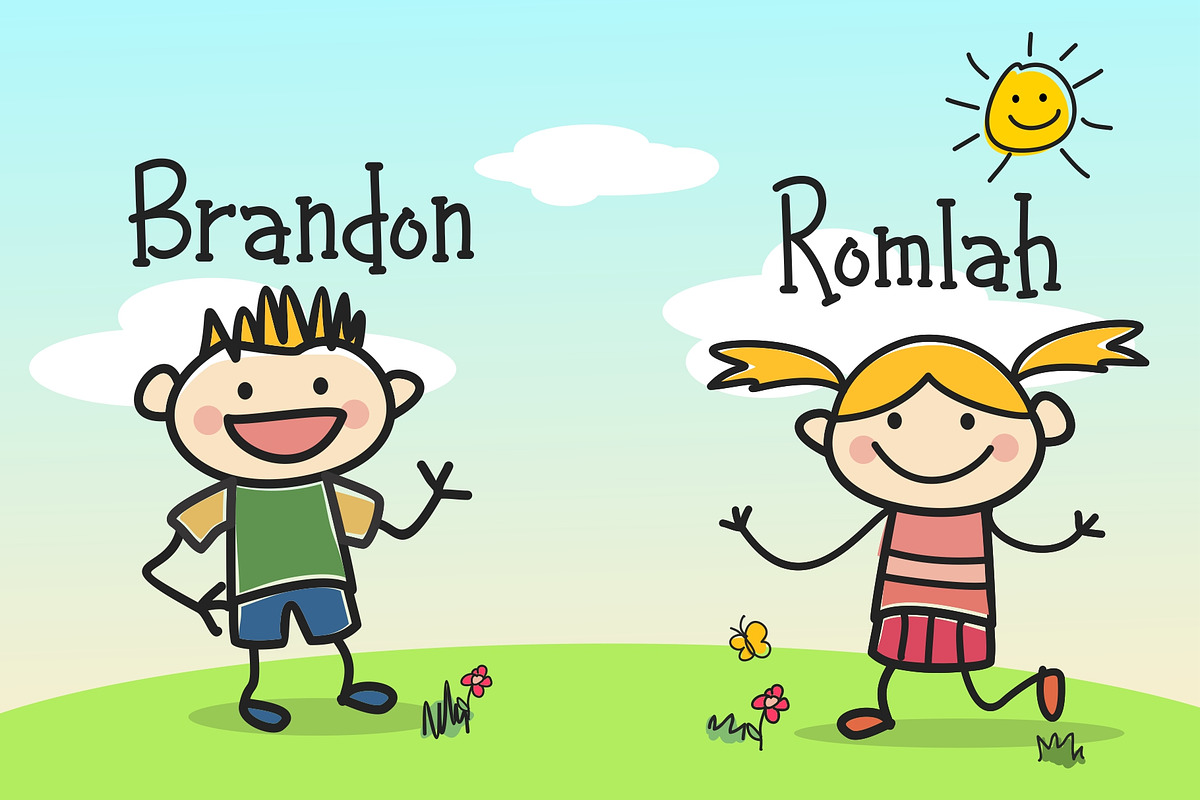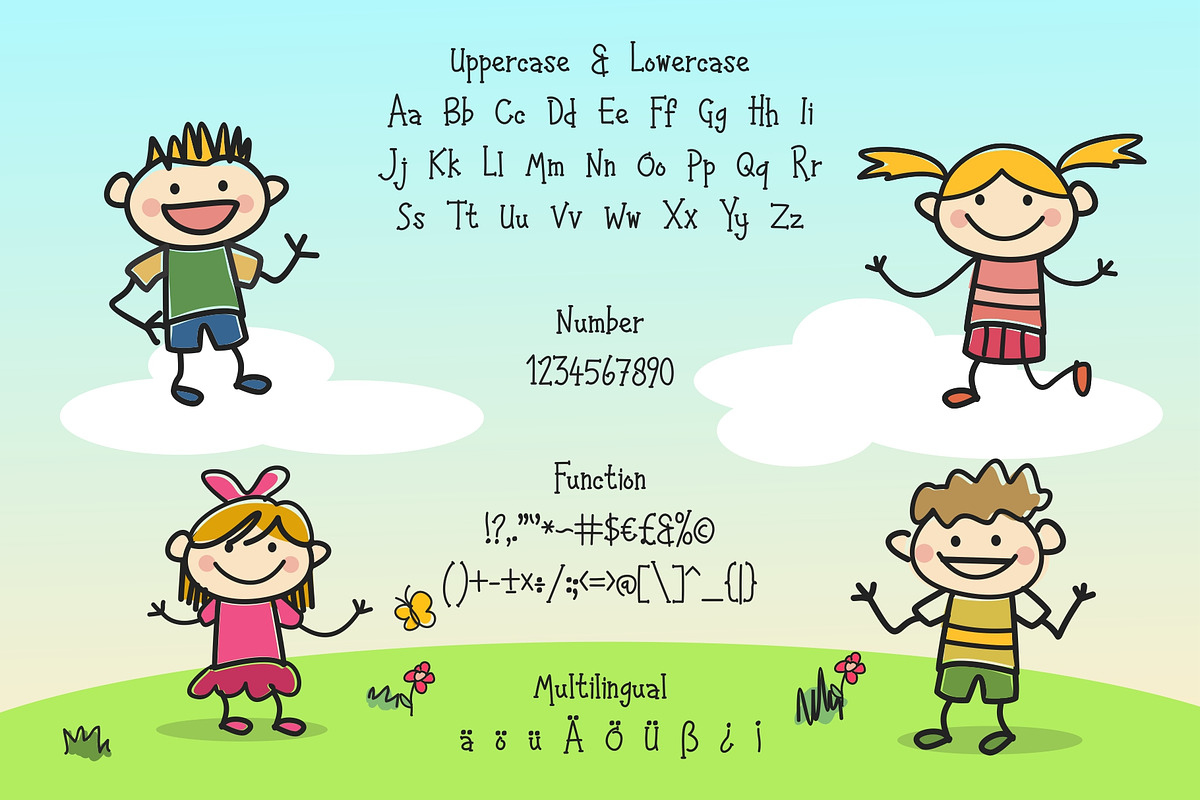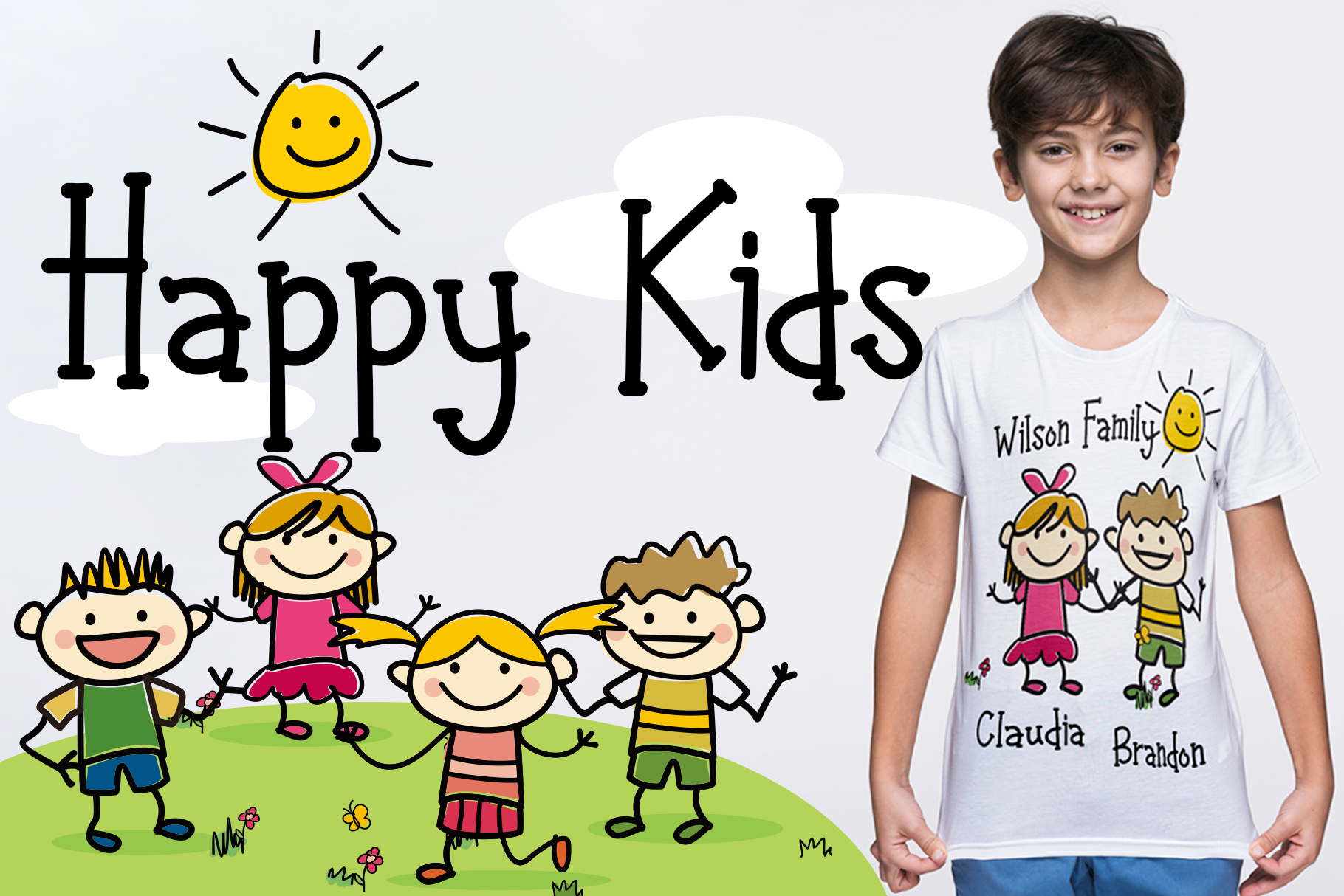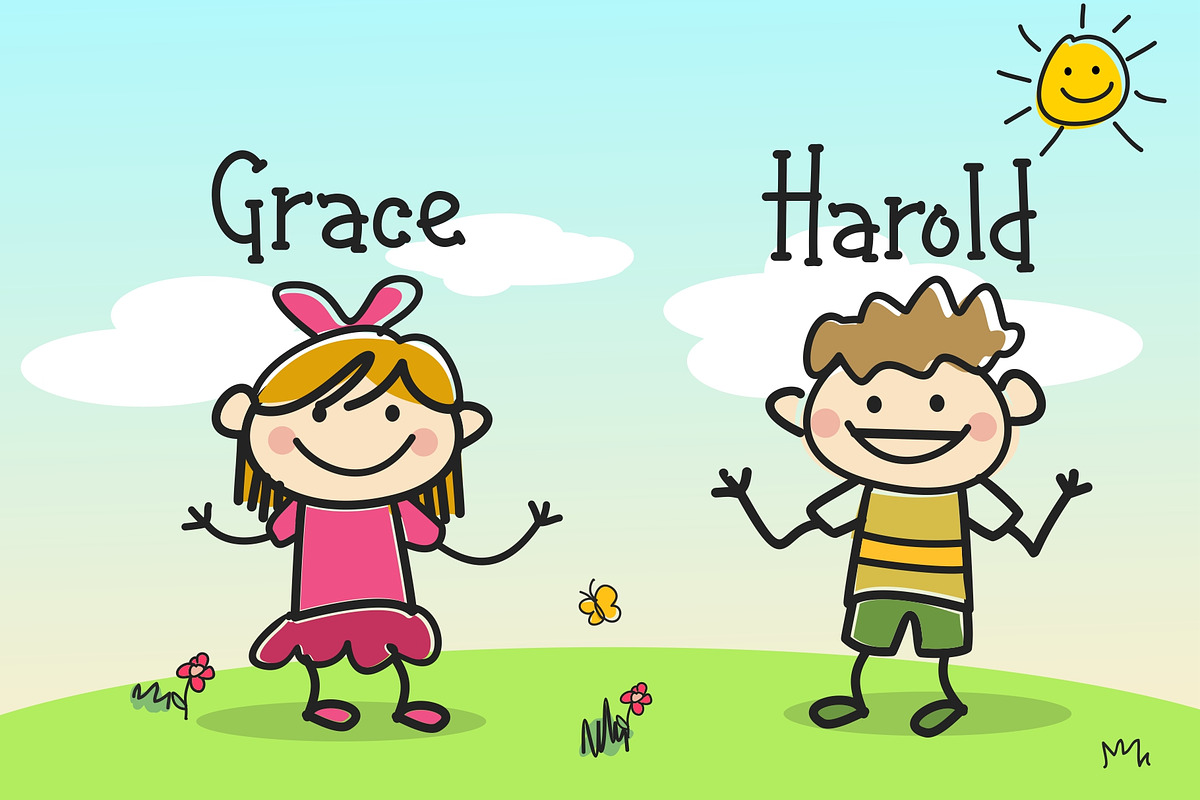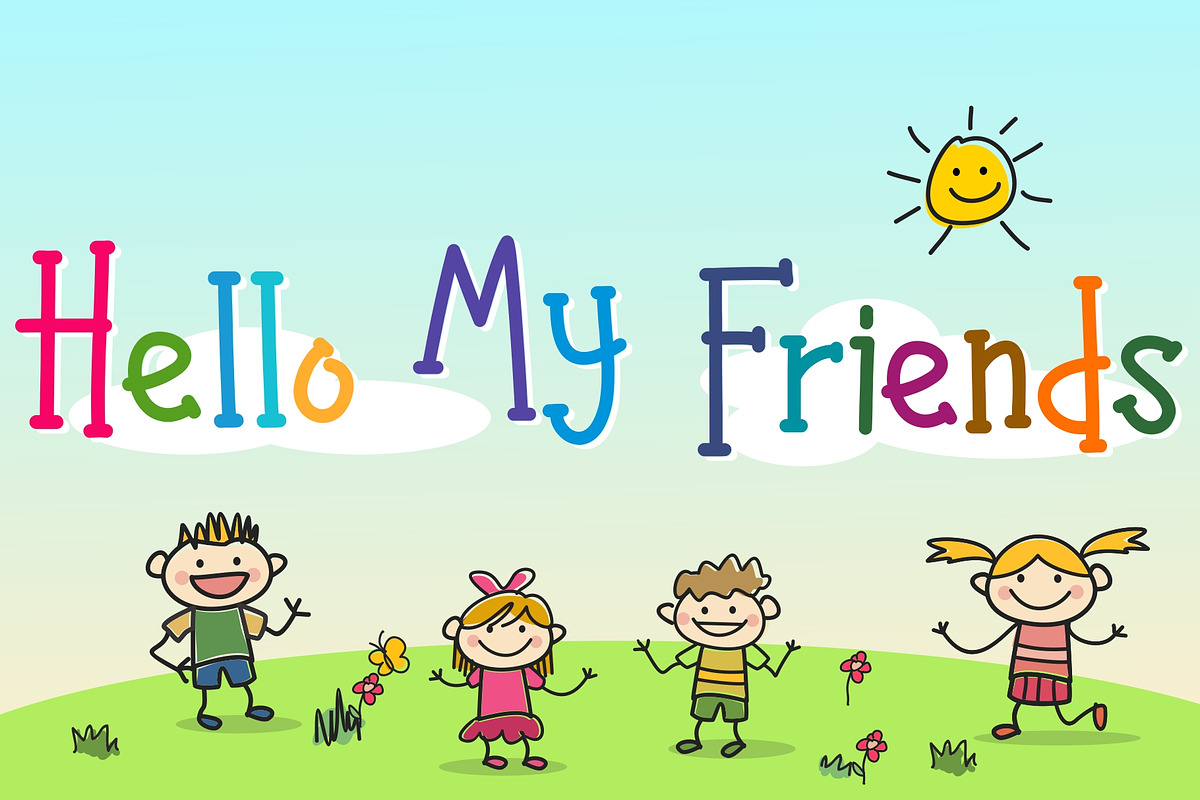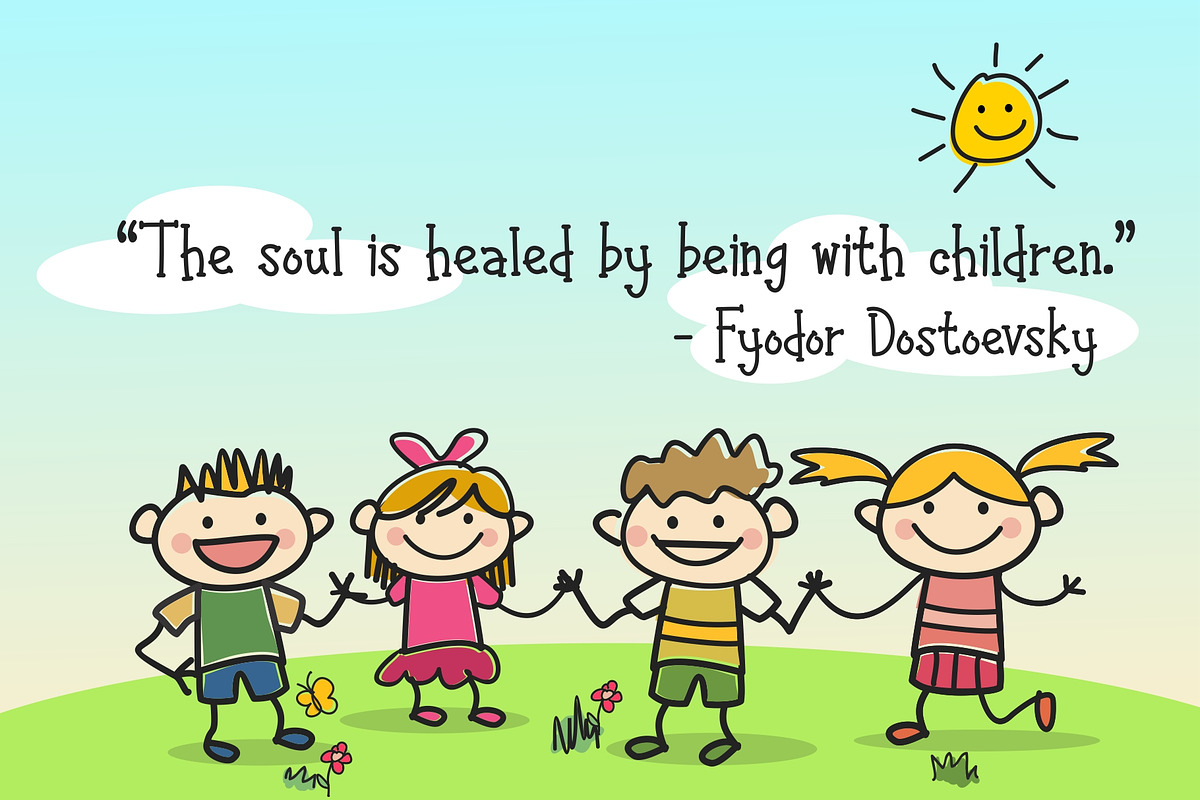
Happy Kids - Playful Font
Happy Kids is a serif font. This font can be used for comic design, children's books,
preschool name tag and others. This font has multiple languages and if you buy this font,
you will get bonus character vectors.
Foreign languages support:
ÀÁÂÃÄÅÆÈÉÊËÌÍÎÏÐÑÒÓÔÕÖÙÚÛÜÝßàáâãäåæèéêëìíîïðñòóôõöùúûüýÿ